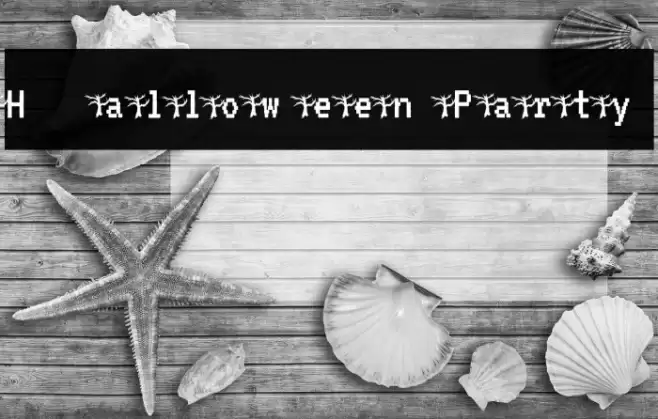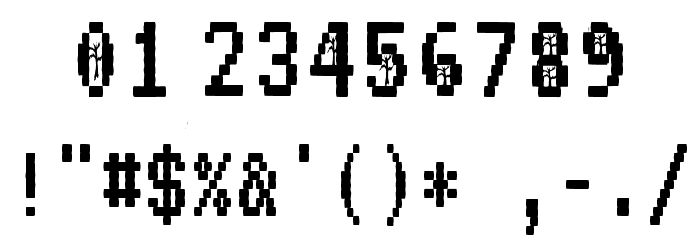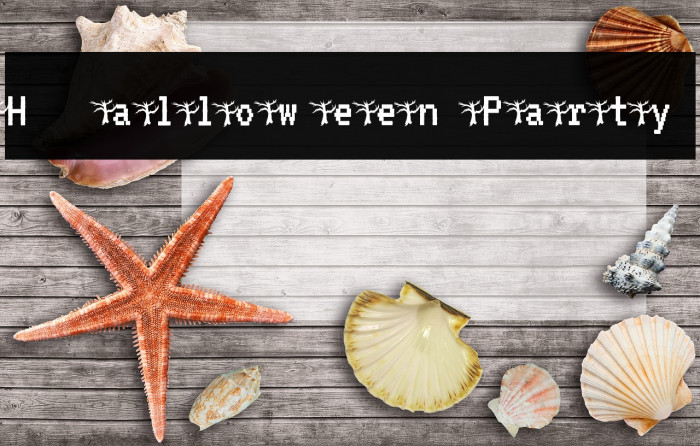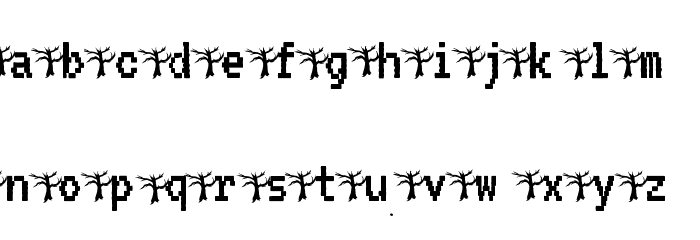
Halloween Party Font
Halloween Party Description
This font features a spooky, decorative style with star-like embellishments on each character, giving it a distinctly eerie and festive appearance. The uppercase and lowercase letters are adorned with sharp, pointed accents that evoke a sense of mystery and Halloween-themed aesthetics. The numbers and special characters maintain this decorative style, ensuring a cohesive look across all glyphs. The font's unique design makes it ideal for seasonal projects that require a touch of the macabre or whimsical. Its intricate details and bold presence make it stand out, perfect for capturing attention in themed designs.
A spooky, decorative font with star-like embellishments, perfect for Halloween themes from Uncategorized fonts.
- Proposed Projects: Ideal for Halloween party invitations, themed posters, spooky event flyers, and decorative signage.
- Use Case: Headlines, Logos, Decorative text